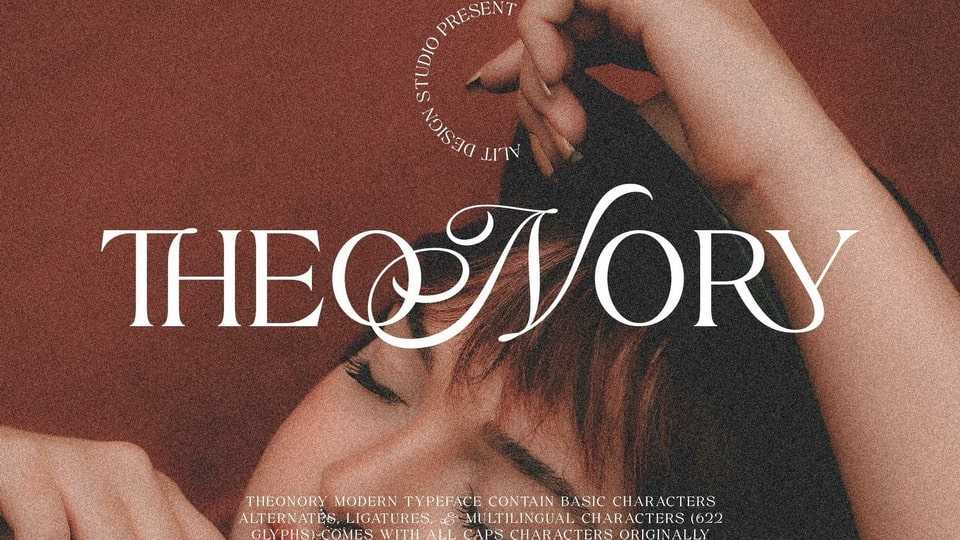
Download Theonory font, a display typeface designed by combining an elegant script font with a simple and charming serif. It makes the Theonory font look different and unique from the fonts you have on your computer collection.